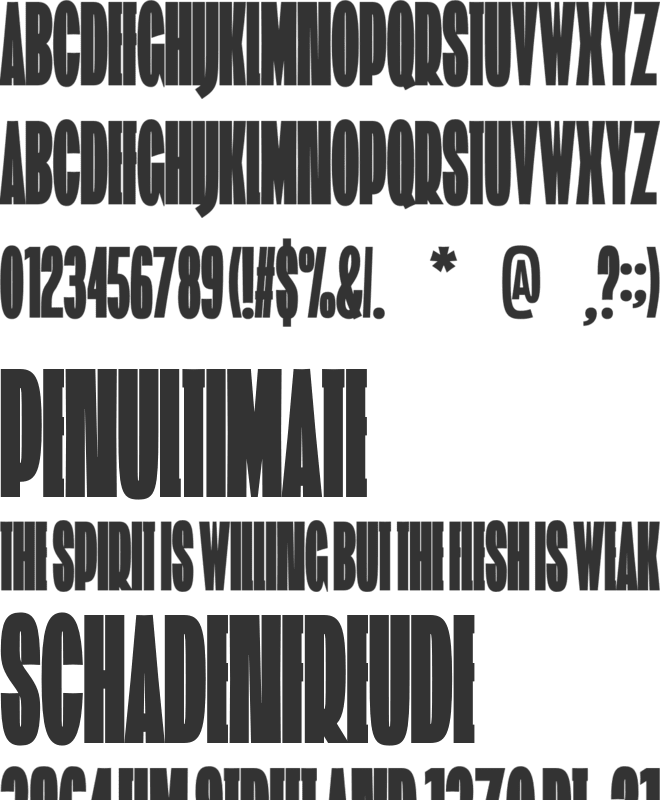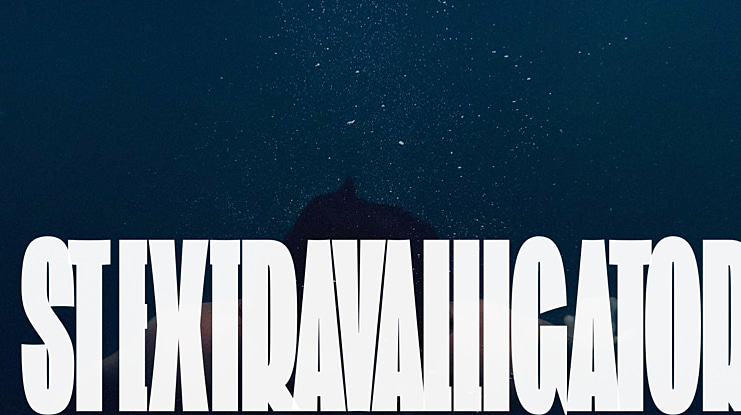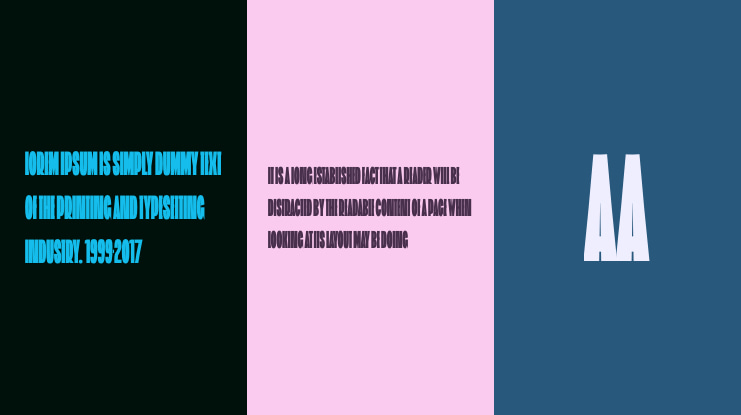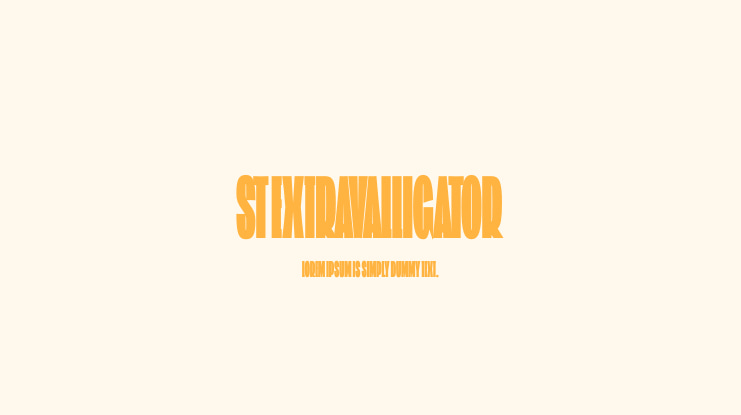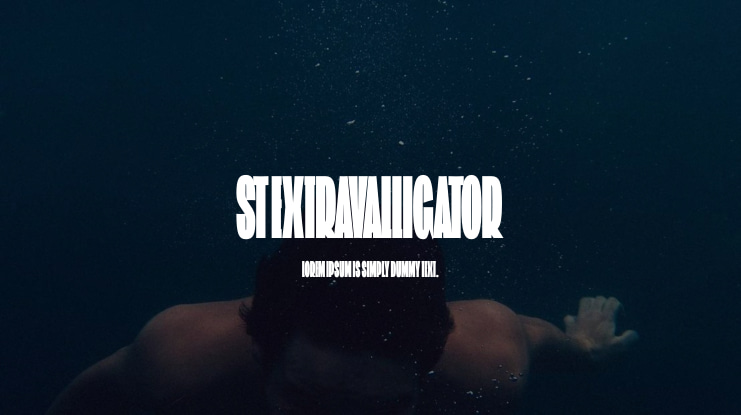
ST Extravalligator Font
Niko Tersa
Extravalligator is a versatile display font with a charming comic book-inspired appearance. It is ideal for creating logos, establishing brand identities, designing book covers, and producing eye-catching posters.